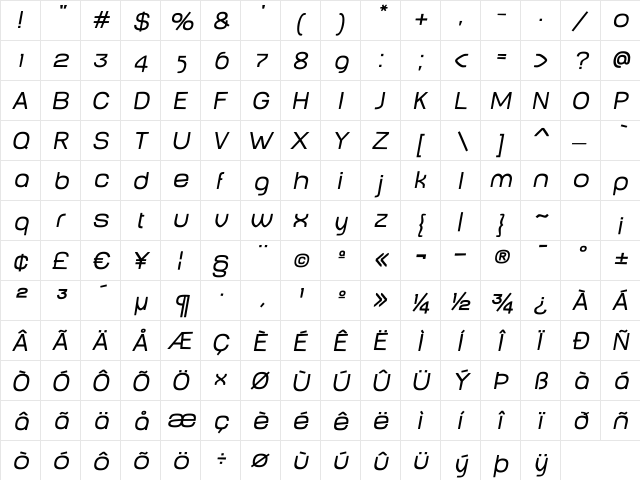
Baby MinePlump Oblique Regular
Design Context for Baby MinePlump Oblique Typeface
Baby MinePlump Oblique offers clean, dependable letterforms without strong stylistic allegiance, making it a practical choice for designers who need flexibility. The slanted form adds forward momentum and visual energy.
Pro Tip: Try Baby MinePlump Oblique for annotation and caption copy alongside an upright companion — the contrast in angle creates a dynamic but ordered typographic system.